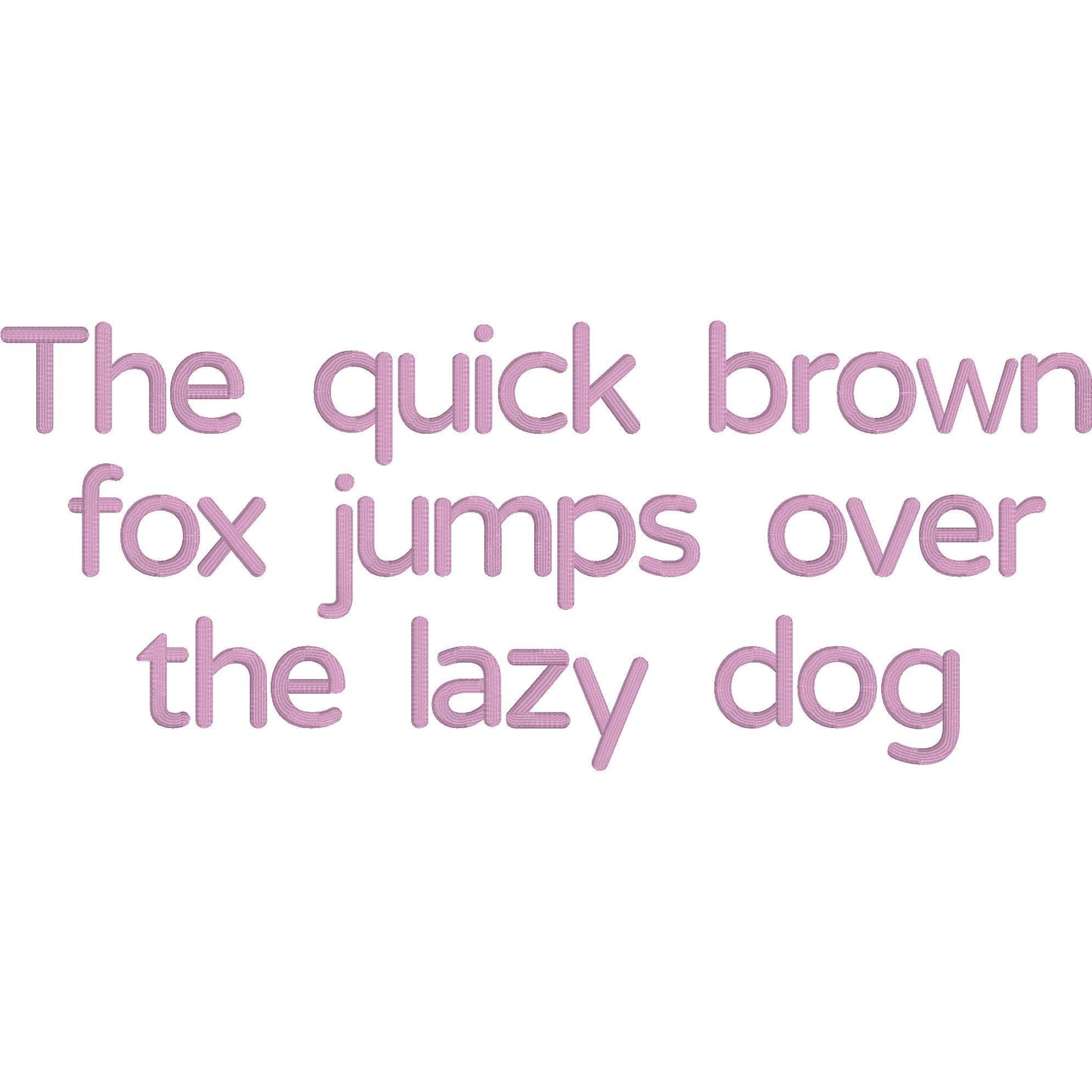
Luno 3D Puff Foam Basic Rounded Embroidery Font
Luno 3D Puff is a Basic Rounded machine embroidery font featuring beautiful satin stitch lettering. Perfect for shirts, towels, hats, baby gifts, monograms, and small business embroidery projects.